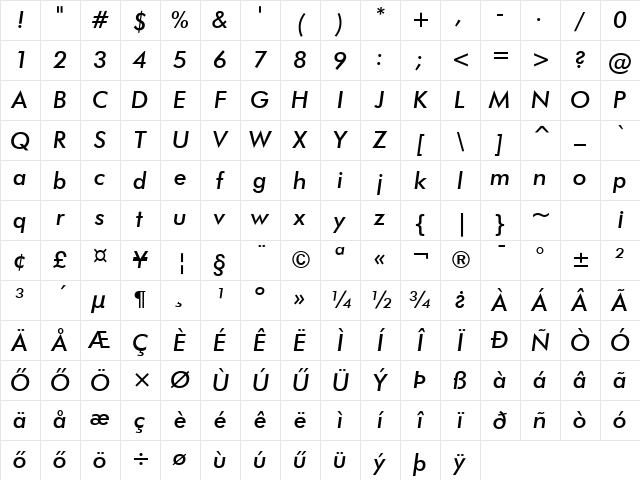
Complete Futura MedHU Medium Italic glyph index. Displaying only characters natively supported by Futura MedHU Medium Italic font.
Futura MedHU has a distinctly futuristic character, with geometric precision and clean angles that feel at home in technology, gaming, and sci-fi contexts. The slanted form adds forward momentum and visual energy.